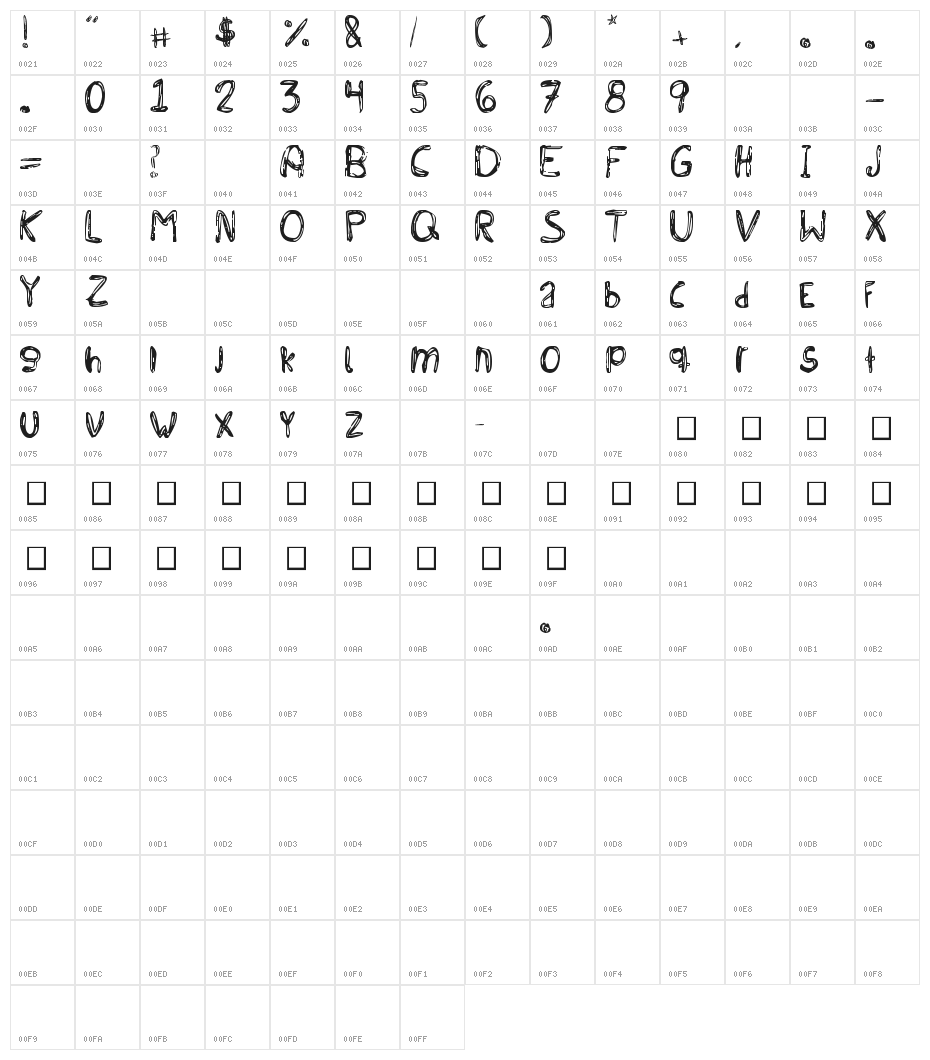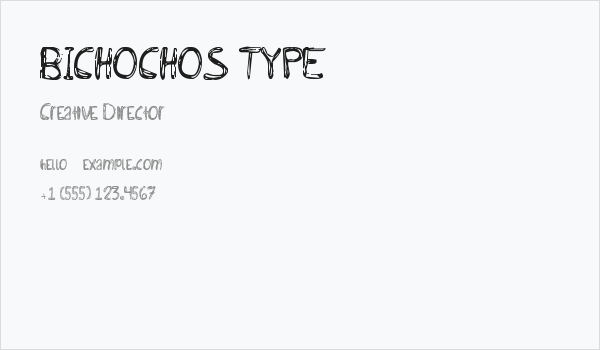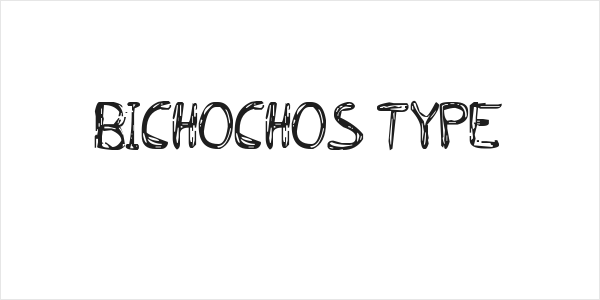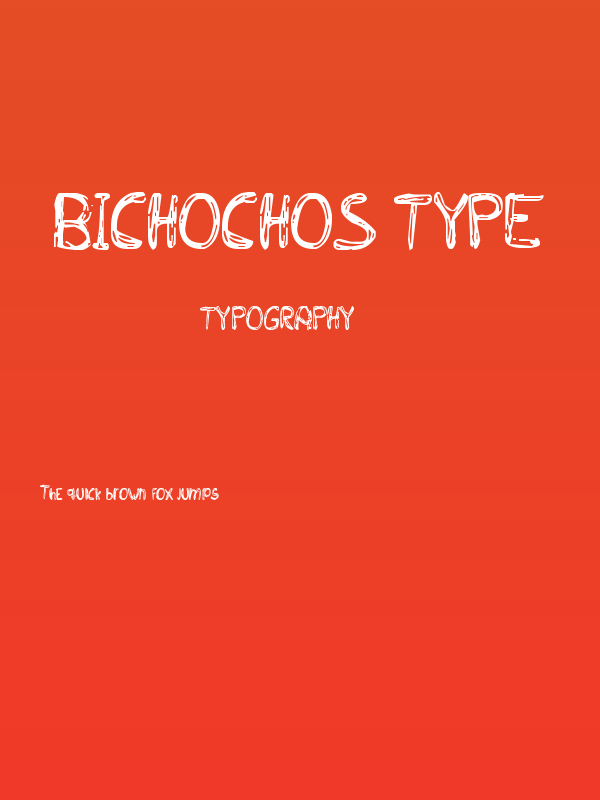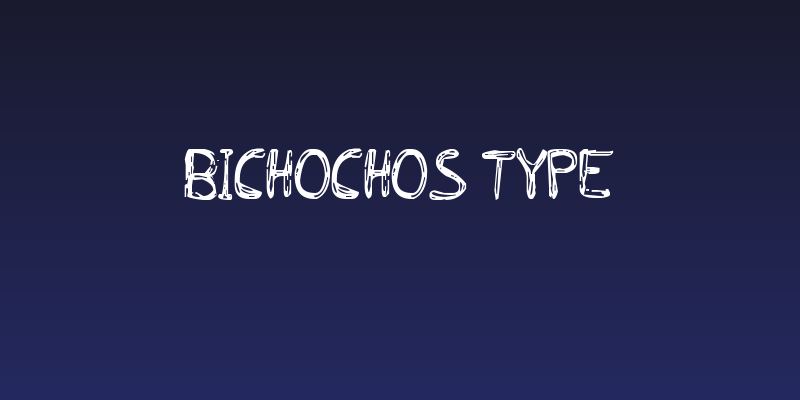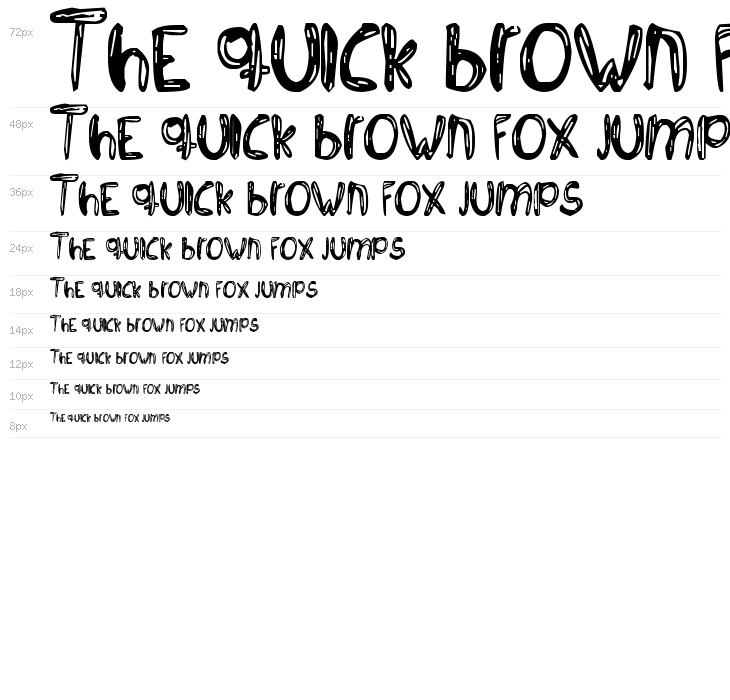
BICHOCHOS TYPE Font
BICHOCHOS TYPE Description
This playful and quirky font features a hand-drawn, doodle-like style that exudes a sense of fun and creativity. The characters are bold and irregular, with a whimsical, cartoonish appearance that makes them stand out. Each letter and number is uniquely crafted, with varying stroke thicknesses and playful loops and curves. The font includes a full set of uppercase and lowercase letters, numbers, and a variety of special characters, making it versatile for creative projects. Its informal and artistic style is perfect for designs that require a touch of humor and personality.
| Proposed Projects | Ideal for children's books, comic strips, playful branding, and creative posters. |